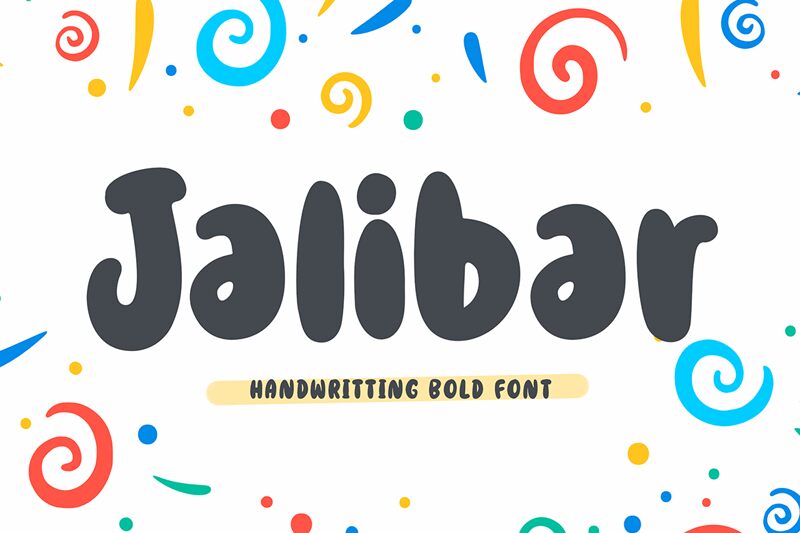
Jalibar is a bold, cartoon-style script display font designed by Wahyu Andi P. It's perfect for creating eye-catching logos, posters, album covers, and more! Its quirky style is also great for crafting children's books and greeting cards.